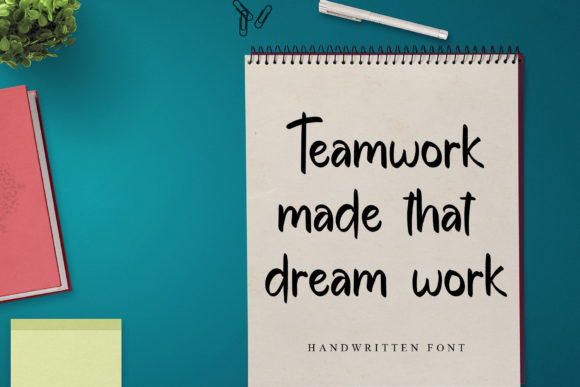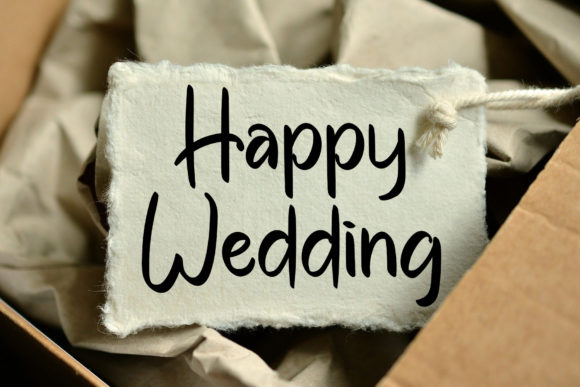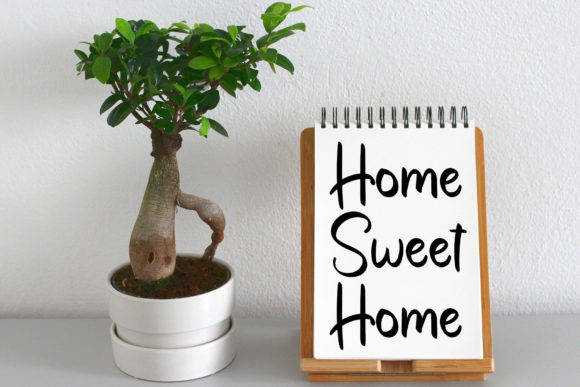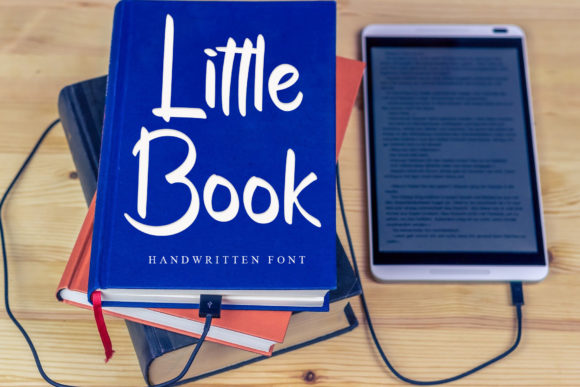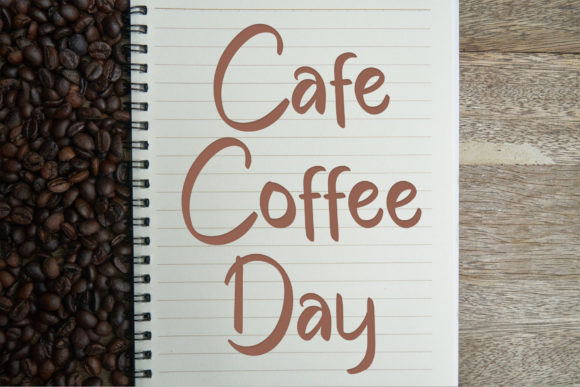
Dress Shop Font
About Dress Shop Font
Dress Shop is a simple, clean and dainty handwritten font. Cursive and joyful, this font will be ideal for writing wedding invitations, cards, branding, printing or any other design that may need a relaxed touch!